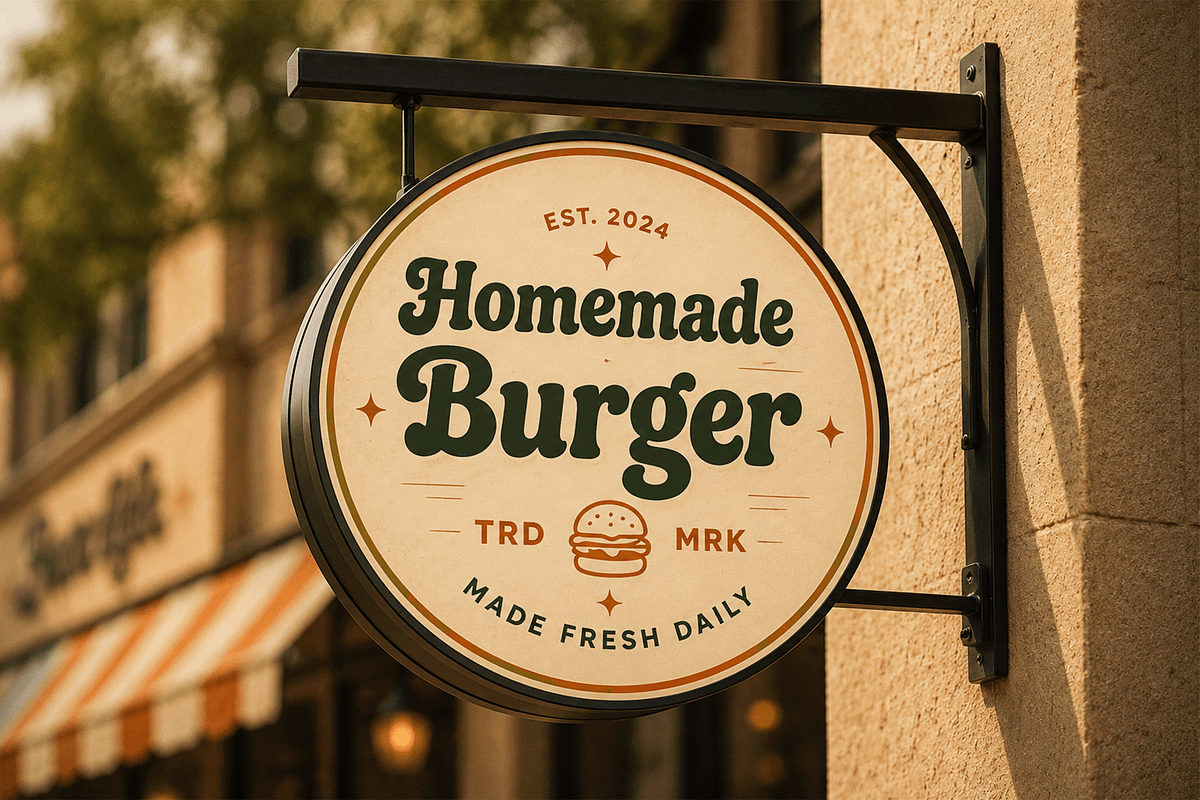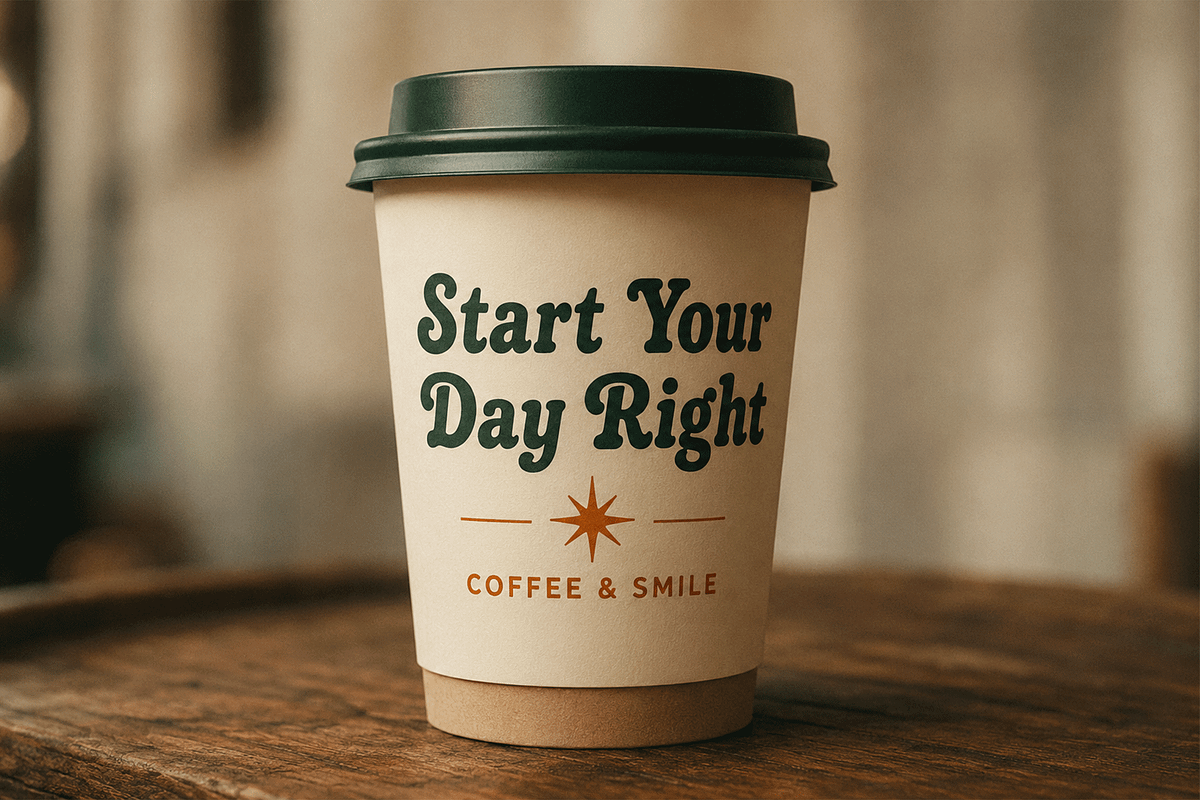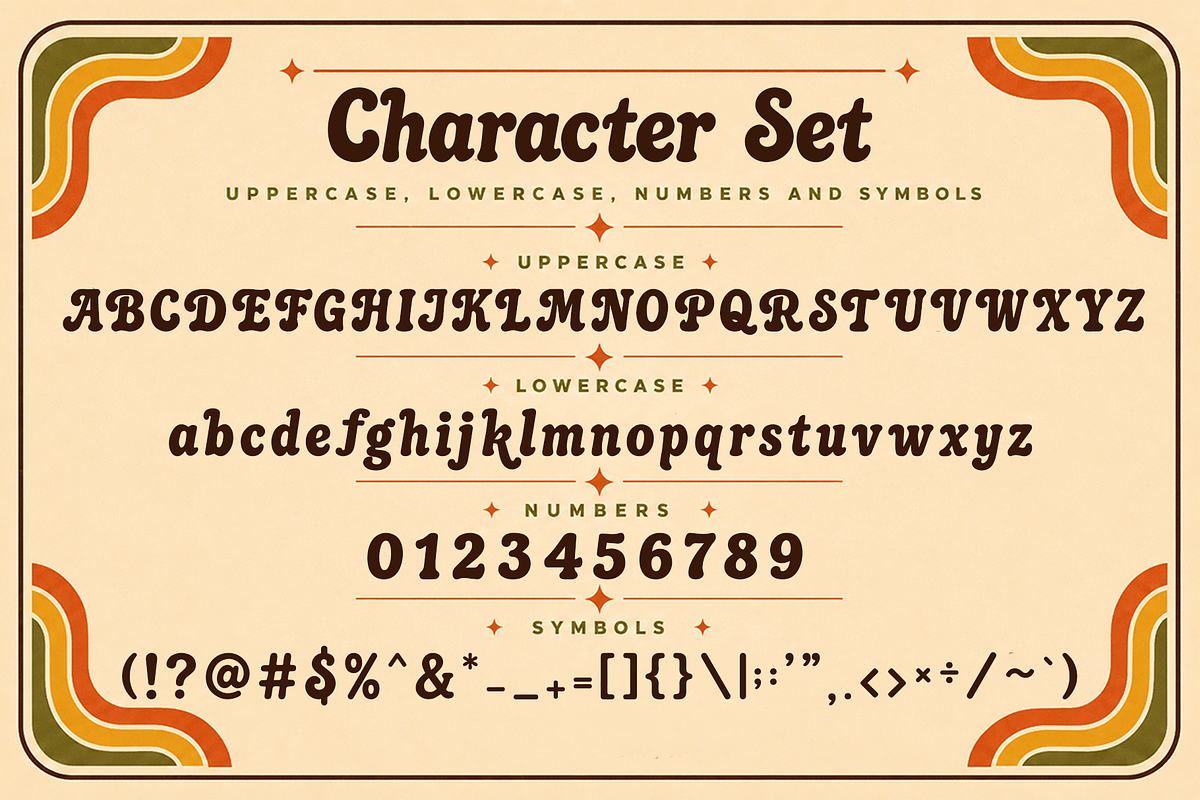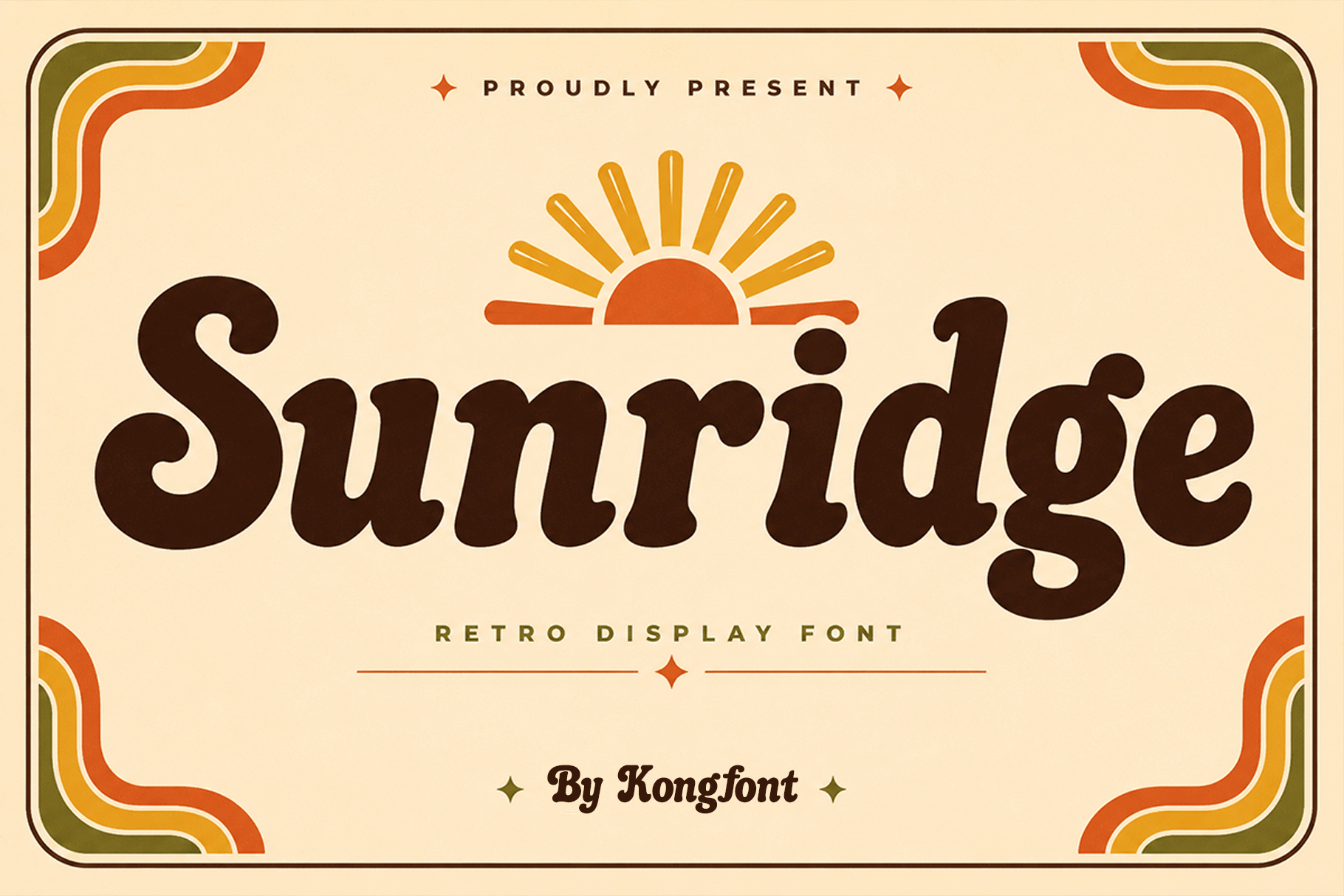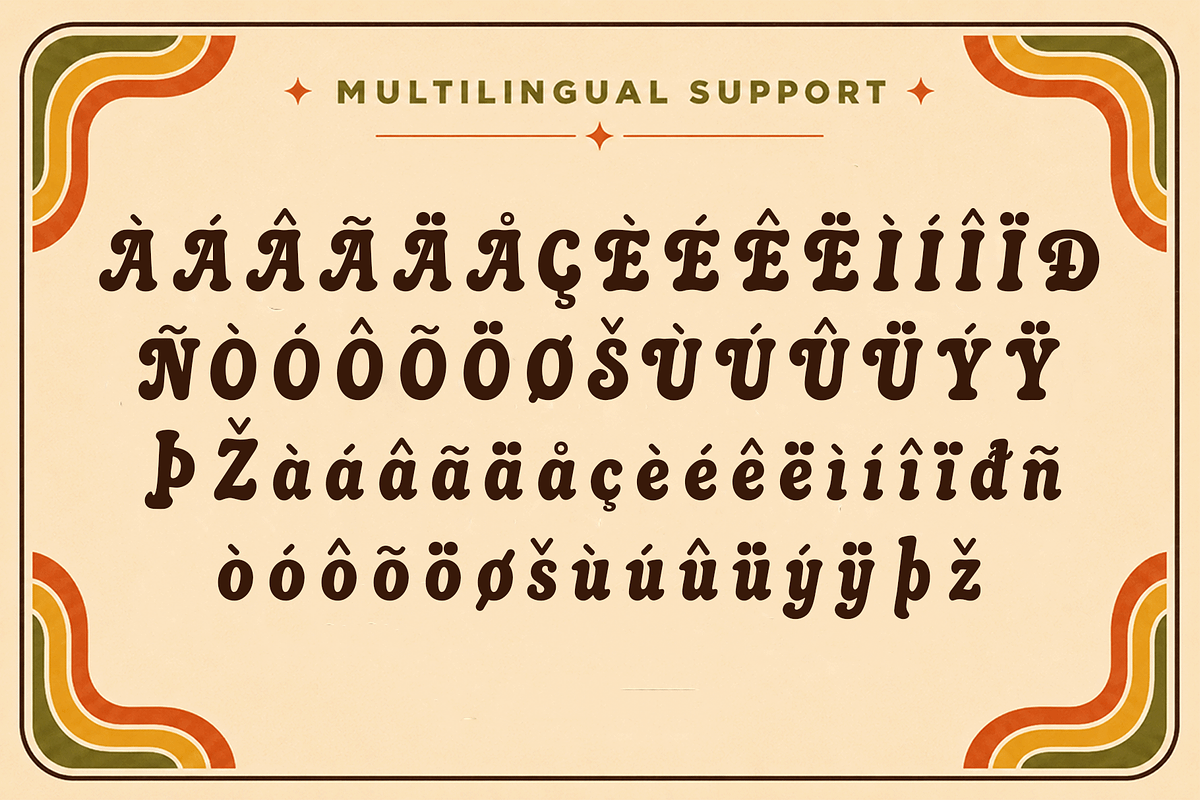
Sunridge - Retro Groovy Display Font
Meet "Sunridge," a retro groovy display font inspired by warm sunshine, vintage posters, and the playful typography of the 1960s and 1970s. Featuring soft curves, bold rounded forms, and expressive letter shapes, Sunridge delivers a nostalgic personality with a friendly modern touch.
Sunridge is ideal for coffee shops, vintage-inspired brands, music projects, summer campaigns, fashion graphics, festival artwork, retro merchandise, restaurant branding, and nostalgic advertising. Its warm and approachable style makes it a versatile choice for designs that need to feel cheerful, artistic, and memorable.